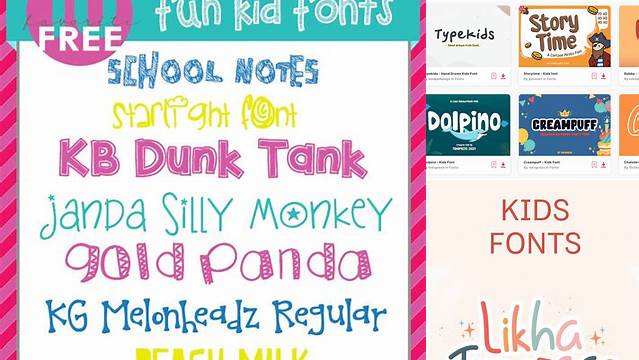
Top Kid Fonts On DaFont: A Guide For Fun Designs
Hey guys! Looking for some awesome fonts to jazz up your kids' projects? You've come to the right place! DaFont is a treasure trove of fonts, and we're diving deep to find the best kid fonts on DaFont. Whether you're designing birthday invitations, creating fun educational materials, or just want to add a playful touch to your work, choosing the right font is crucial. This guide will walk you through some of the coolest, most kid-friendly fonts DaFont has to offer. Get ready to unleash your creativity! Let's explore the wonderful world of best kid fonts on DaFont and make your designs pop!
1. Why Choose DaFont for Kid Fonts?
2. Top Playful Fonts for Children
Let's dive into some of the absolute best playful fonts for kids on DaFont. These fonts are perfect for adding a touch of fun and personality to any project, whether it's a birthday card, a classroom poster, or a fun online game. We’ll explore a range of styles, from bubbly and whimsical to bold and adventurous. Get ready to be inspired! When discovering best kid fonts on DaFont, playful fonts are the heart of the matter. Let's check some of them out:
2.1 Bubbly and Whimsical Font Styles
Bubbly and whimsical fonts are fantastic choices when searching for the best kid fonts on DaFont. These fonts are designed to evoke feelings of joy, fun, and playfulness. They often feature rounded shapes, bouncy letterforms, and a sense of carefree creativity. Think of fonts that look like they were hand-drawn with crayons or markers. These styles are perfect for younger children, making them ideal for projects like birthday invitations, storybooks, and educational materials. The bubbly appearance can make text more engaging and easier for kids to read and understand. They can also be great for creating a lighthearted atmosphere, perfect for anything from a school project to a fun website. When looking for the best kid fonts on DaFont, consider these characteristics.
2.2 Bold and Adventurous Font Choices
For a more impactful design, you'll want to consider bold and adventurous fonts, a key component when looking for the best kid fonts on DaFont. These fonts are designed to grab attention and convey a sense of excitement and energy. They often feature thick strokes, strong lines, and a dynamic feel. Think of fonts that look like they’re ready for action, like the ones used in comic books or adventure stories. These styles are great for older kids and teens, making them perfect for posters, video game titles, and anything else that needs a bit of punch. They can also be very effective for conveying themes of adventure, exploration, and excitement. Bold fonts can be particularly useful in headings and titles, ensuring that your message stands out. When finding the best kid fonts on DaFont, make sure to keep these bold and adventurous choices in mind.
3. Fonts for Educational Purposes
Let's not forget the importance of fonts for education! Choosing the right font can make a huge difference in how kids perceive and interact with learning materials. Here's a look at some fantastic fonts on DaFont that are specifically designed for educational purposes. When deciding the best kid fonts on DaFont, focus on clarity and readability.
3.1 Readable Fonts for Younger Learners
When you're looking for the best kid fonts on DaFont, readability is paramount, especially for younger learners. These fonts are designed with simplicity and clarity in mind, ensuring that children can easily read and understand the text. They typically feature clean lines, simple letter shapes, and a good amount of space between letters and words. Think about fonts that are similar to handwriting, but still neat and easy to follow. These styles are perfect for textbooks, workbooks, and other educational materials. The goal is to minimize visual distractions and make it as easy as possible for children to focus on the content. Fonts like these can help reduce eye strain, improving comprehension. This is crucial in the early years of education. A clear and simple font can make a massive difference in a child’s learning experience. Considering the best kid fonts on DaFont, these fonts improve comprehension.
3.2 Fonts for Learning Alphabet and Numbers
Beyond general readability, certain fonts are designed specifically for teaching the alphabet and numbers, which is why they're part of the search for the best kid fonts on DaFont. These fonts often incorporate visual cues and features that make it easier for children to learn the shapes and forms of letters and numbers. Some fonts might include directional arrows to show how to write each letter or number, while others might have distinct shapes that help children differentiate between similar letters. These styles are perfect for flashcards, worksheets, and other early learning resources. These specialty fonts can make learning fun and interactive, helping kids develop strong foundational skills in literacy and numeracy. They're a valuable tool for educators and parents who want to make learning a more engaging and effective process. Considering the best kid fonts on DaFont, specialty fonts are crucial for young learners.